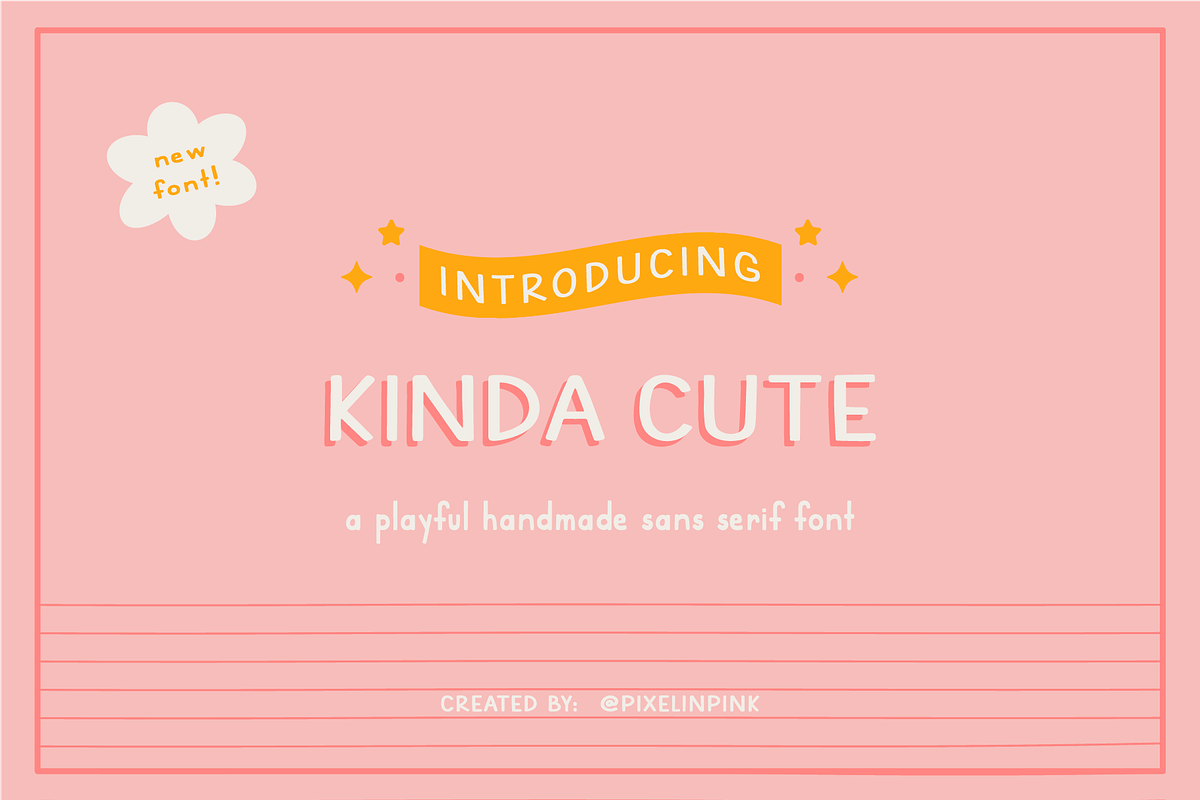
Kinda Cute Font Free Download is a fun, bubbly, and playful typeface that adds a dose of charm to any creative project. With its rounded edges, hand-drawn feel, and lighthearted personality, this font is perfect for kids’ designs, greeting cards, cute logos, packaging, and social media graphics that need a cheerful touch.
Whether you're designing for a toy brand, a birthday invitation, or a fun DIY printable, Kinda Cute brings friendliness and joy to your typography. Its easy readability and quirky character make it a go-to choice for projects that aim to be sweet, approachable, and just a little bit silly.